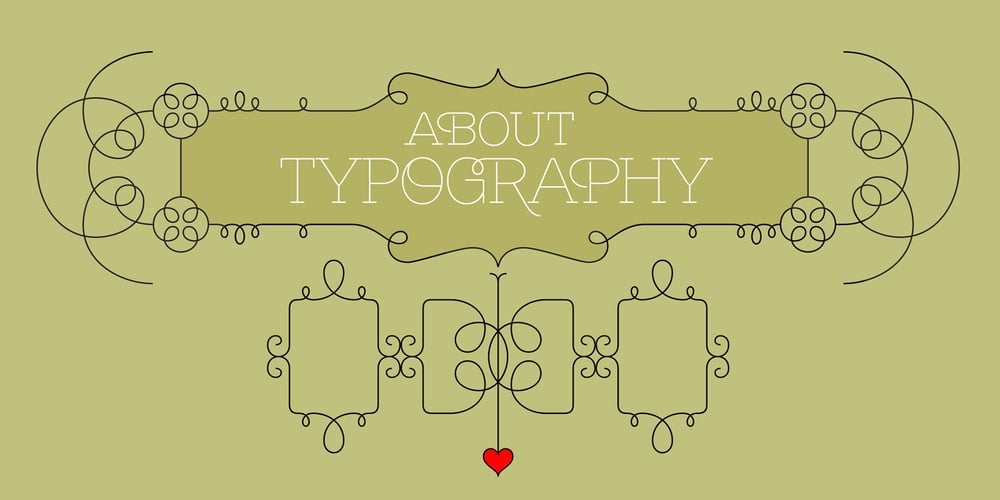
Brownstone Slab Font Family was designed by Alejandro Paul and published by Sudtipos. Brownstone Slab contains 6 styles and family package options. Alejandro Paul’s Brownstone Slab is based on his own popular, award-winning, Brownstone Sans typeface. Like the original Sans, Brownstone Slab is a 21st-century design, influenced by the Victorian decorative motifs of the ironwork and carved decorations of New York City row houses. Brownstone Slab’s sturdy serifs make it slightly more masculine and solid than its predecessor. As with Brownstone Sans, Brownstone Slab includes character sets for Latin-based languages, including Western and Eastern European, Baltic, Turkish, Maltese, Celtic and Welsh. It includes over 1500 glyphs, including small capitals, swash characters, alternates, and ligatures, in both Light and Thin weights. Ornamental frames are provided in all weights.